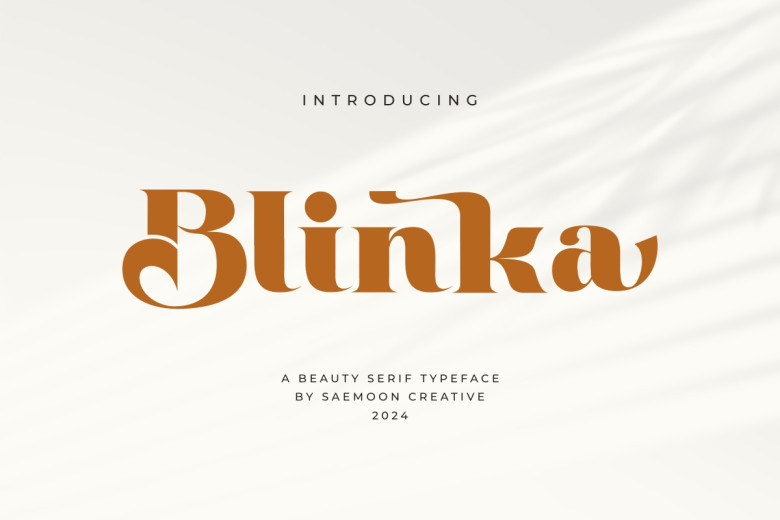
Blinka Font
Blinka is a serif font with elegant features, was developed to add sophistication to various design concepts. Blinka is an exquisite font boasting classical yet modern elements in its features that bring depth to designs.
Elegant and professional appearance achieved through soft serifs and symmetrical proportions. Every letter was carefully designed to highlight delicate elements while complementing proportional shapes.
Blinka Serif Font